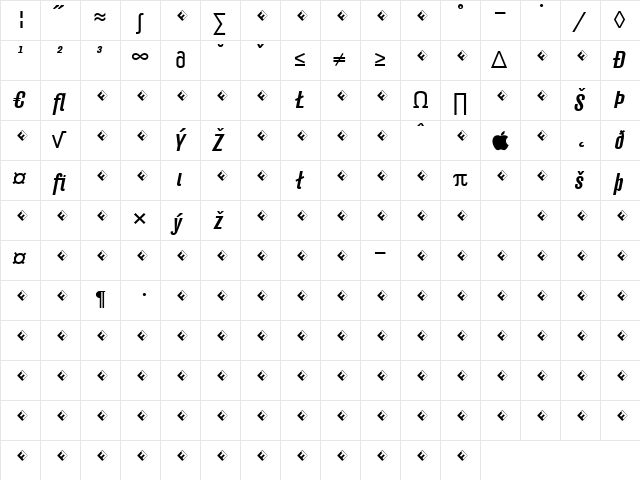
Hydra-MediumItalicExpert Regular
| Designer | Silvio Napoleone |
Design Context for Hydra-MediumItalicExpert Typeface
Hydra-MediumItalicExpert offers clean, dependable letterforms without strong stylistic allegiance, making it a practical choice for designers who need flexibility. Its italic angle brings a sense of urgency and motion to the letterforms.